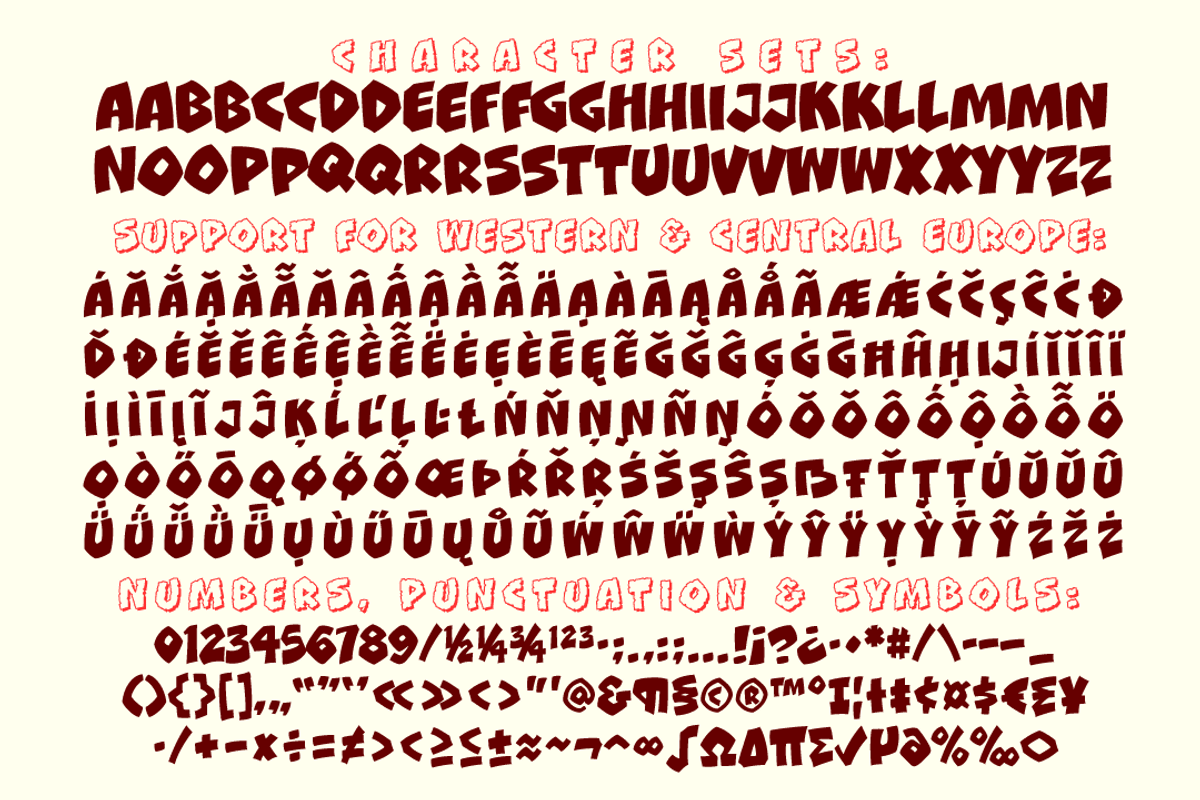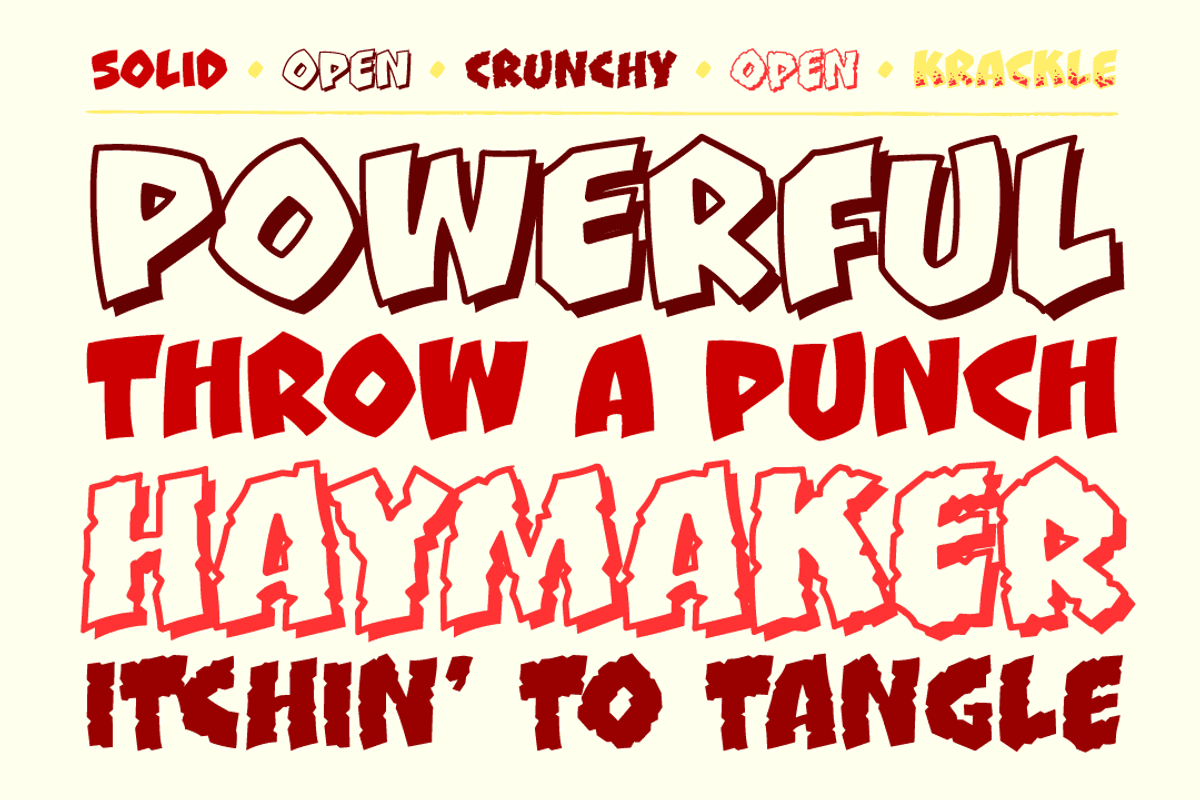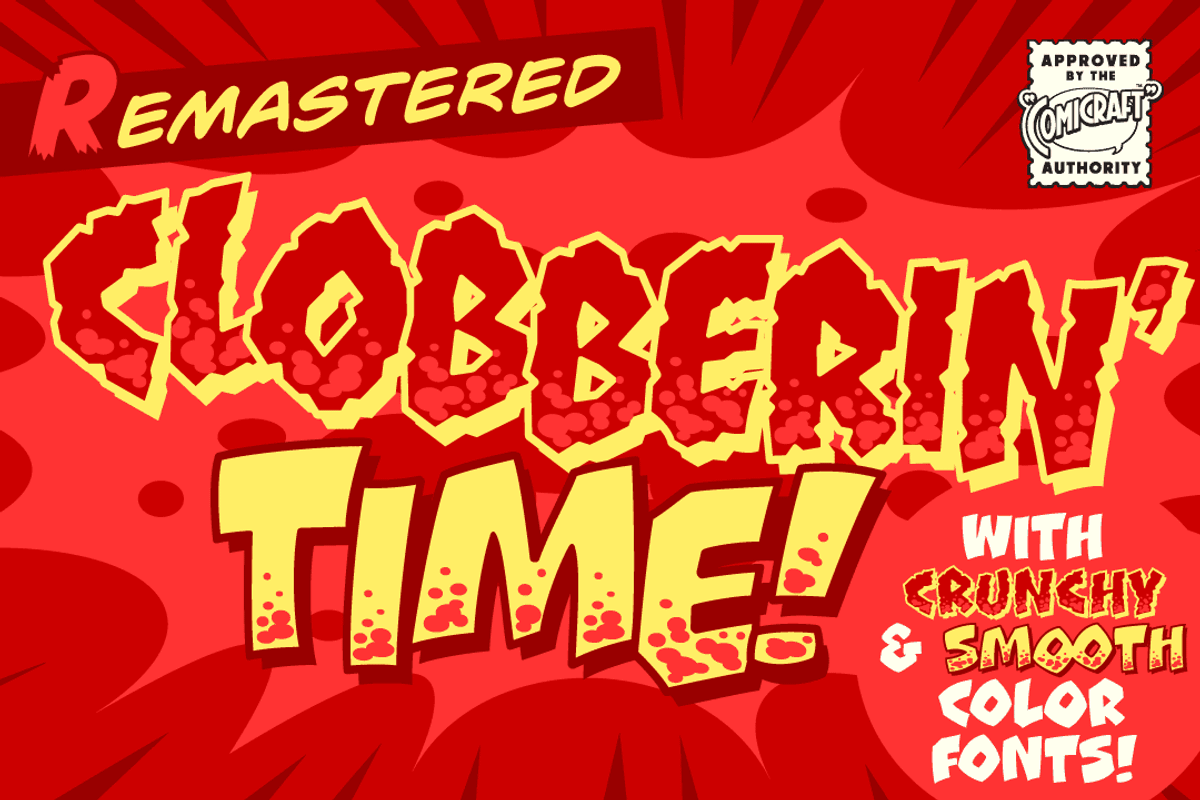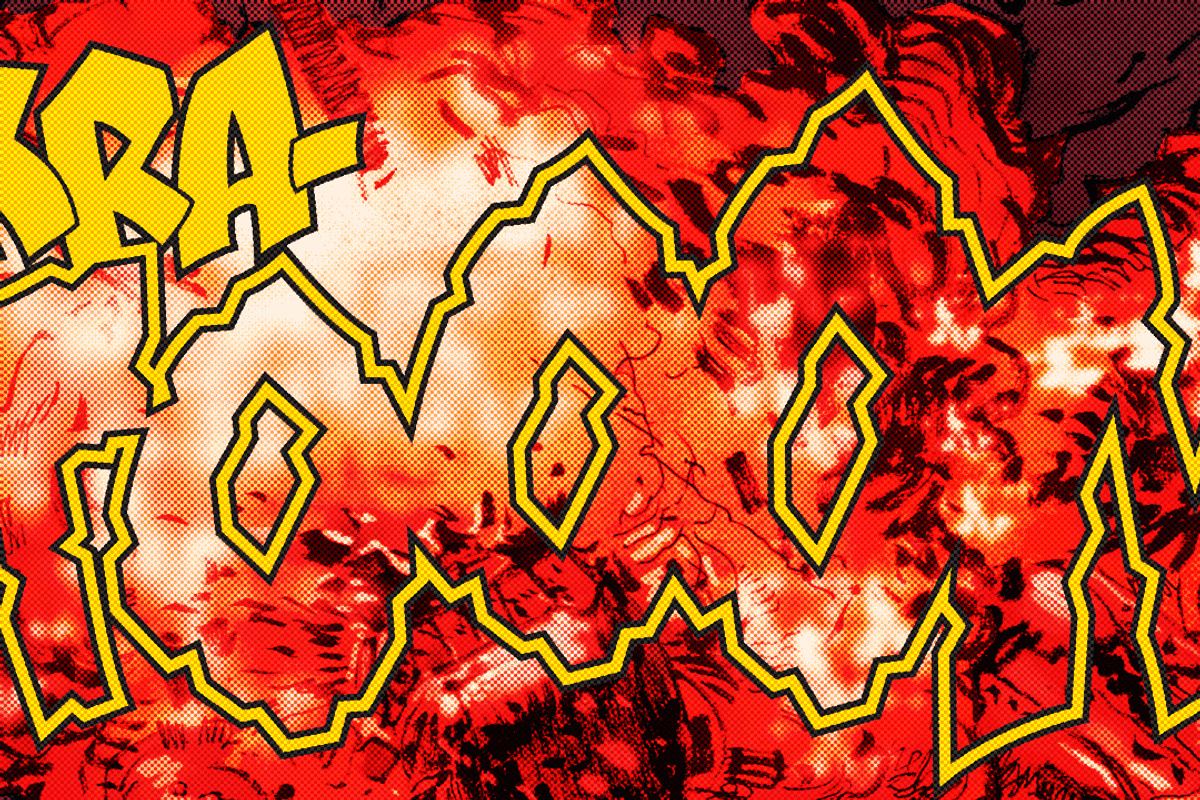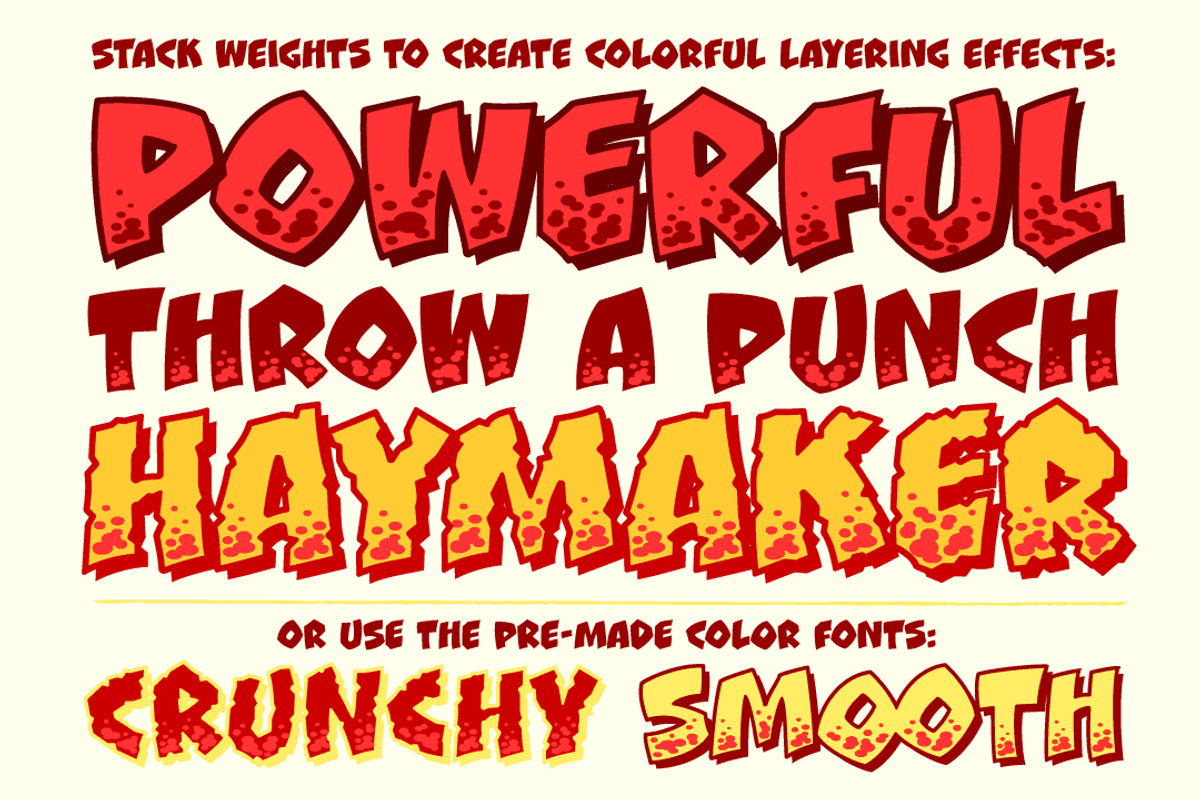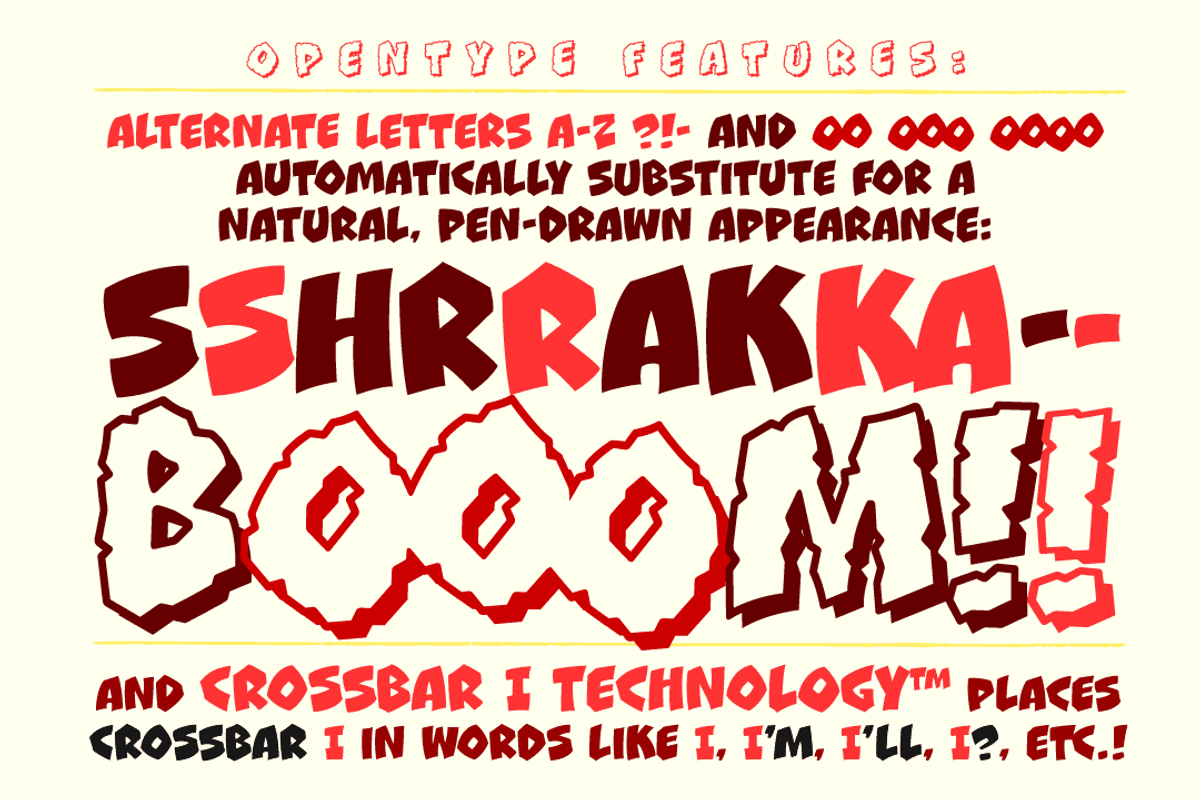
Clobberin' Time - ultrabold comic FX
Sheesh! Seems like Aunt Petunia’s favorite blue-eyed nephew is about to open up a whole freight train full of Whupass faster than you can say “It’s Clobberin’ Time!”
Come out swinging with Comicraft’s best-loved sound effect font, now with added KIRBY KRACKLE to give extra Powerhouse to every Punch!